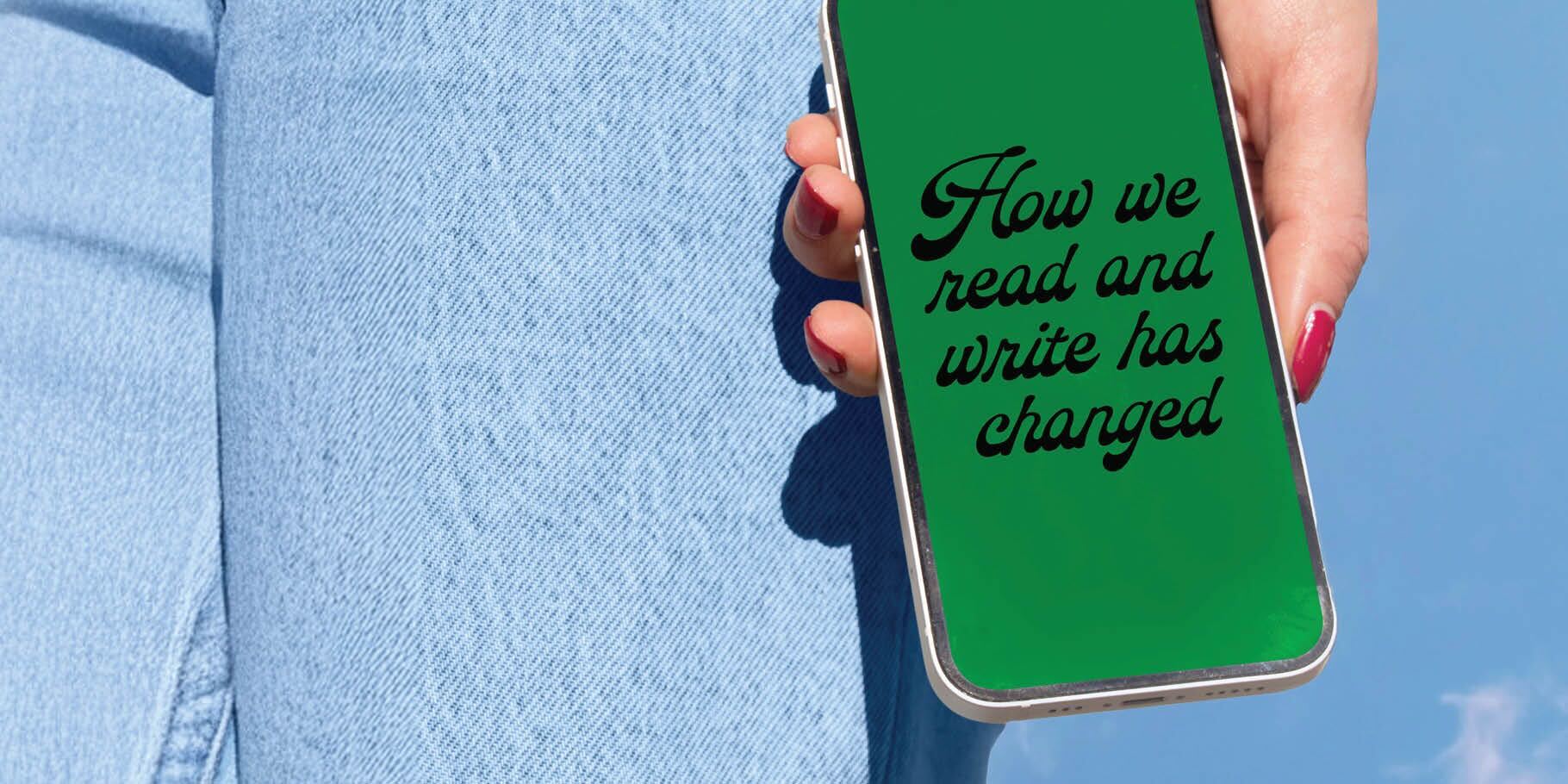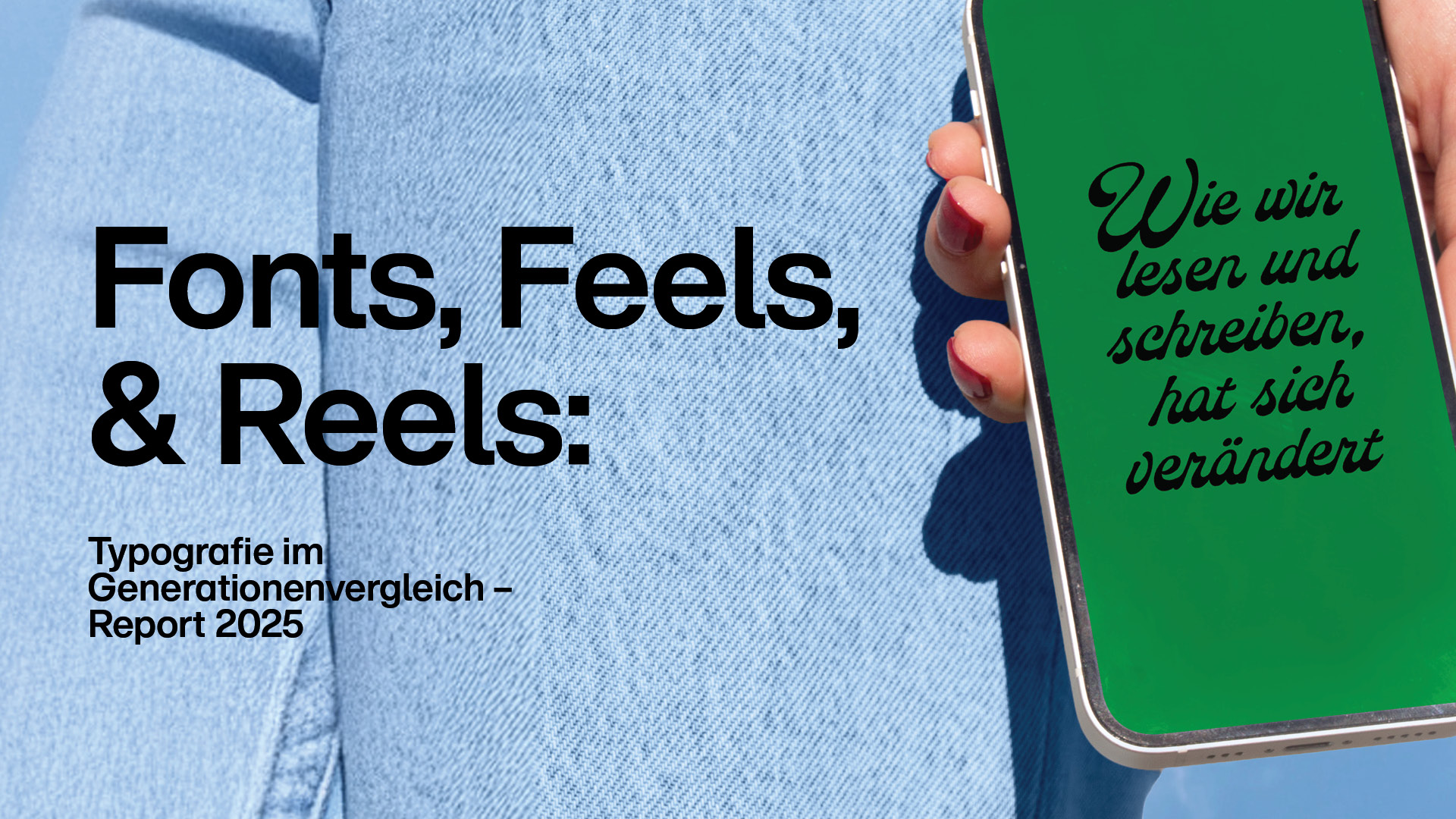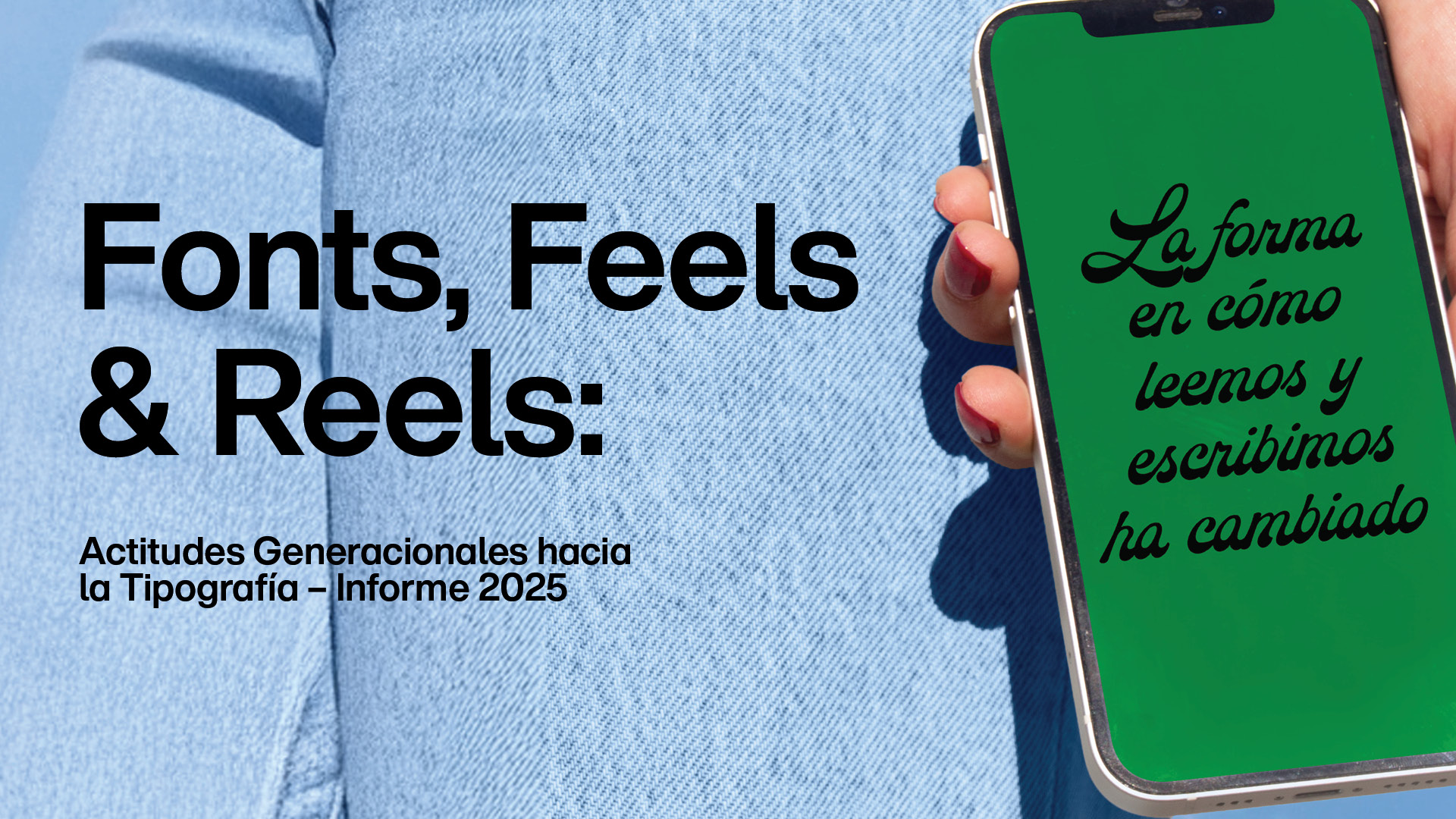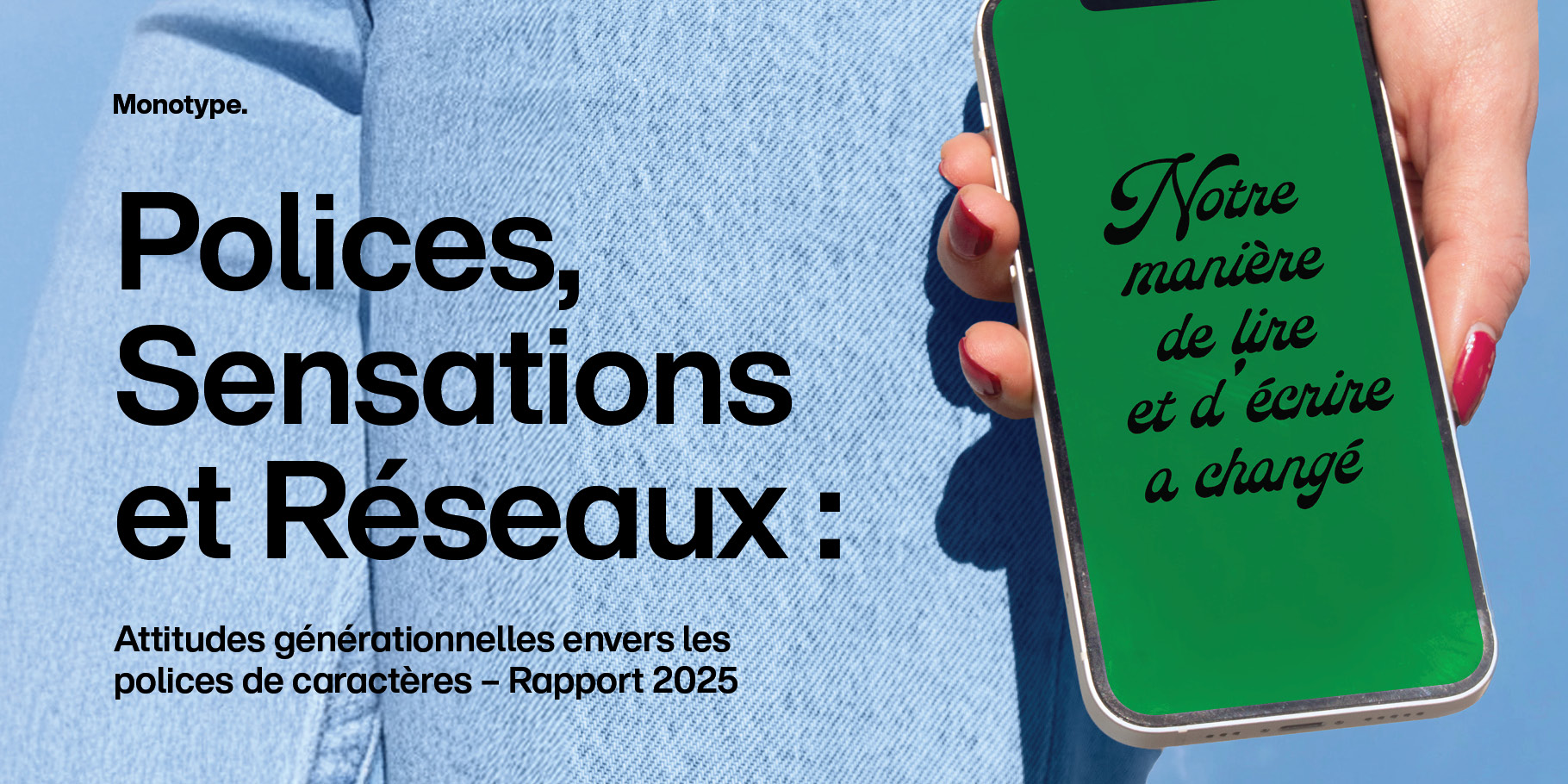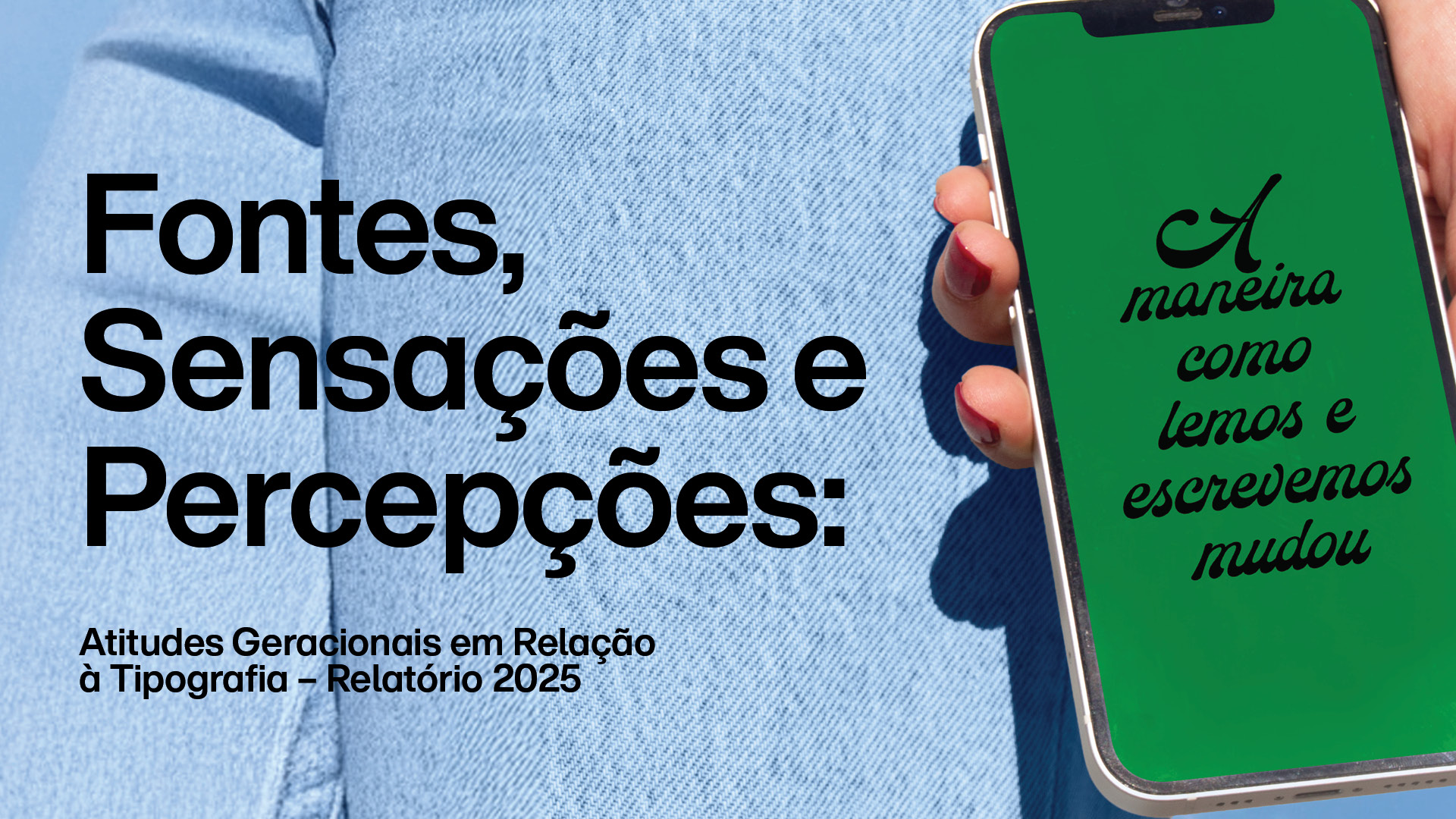
The Fonts, Feels, & Reels: Generational Attitudes to Type – 2025 Report explores what type means to each generation, how it’s used, and why it matters to us.
Partnering with survey experts Censuswide, we asked 12,000 people — from Boomers to Gen Z, across six countries — how they post, create, express, and perceive the fonts around them.
Social media creativity is evolving. As we spend more of our personal and working lives online, fonts have become a way to blend in, belong, or stand out. And across generations, respondents are recognizing this shift, seeking out the social media and platforms that give them more choices and creative control.
- Fonts matter more than ever.
- Fonts turn text into expression.
- Fonts: The secret ingredient for driving engagement.
- More fonts, please.
- First impressions start with fonts.
How do various generations perceive and respond to typography?